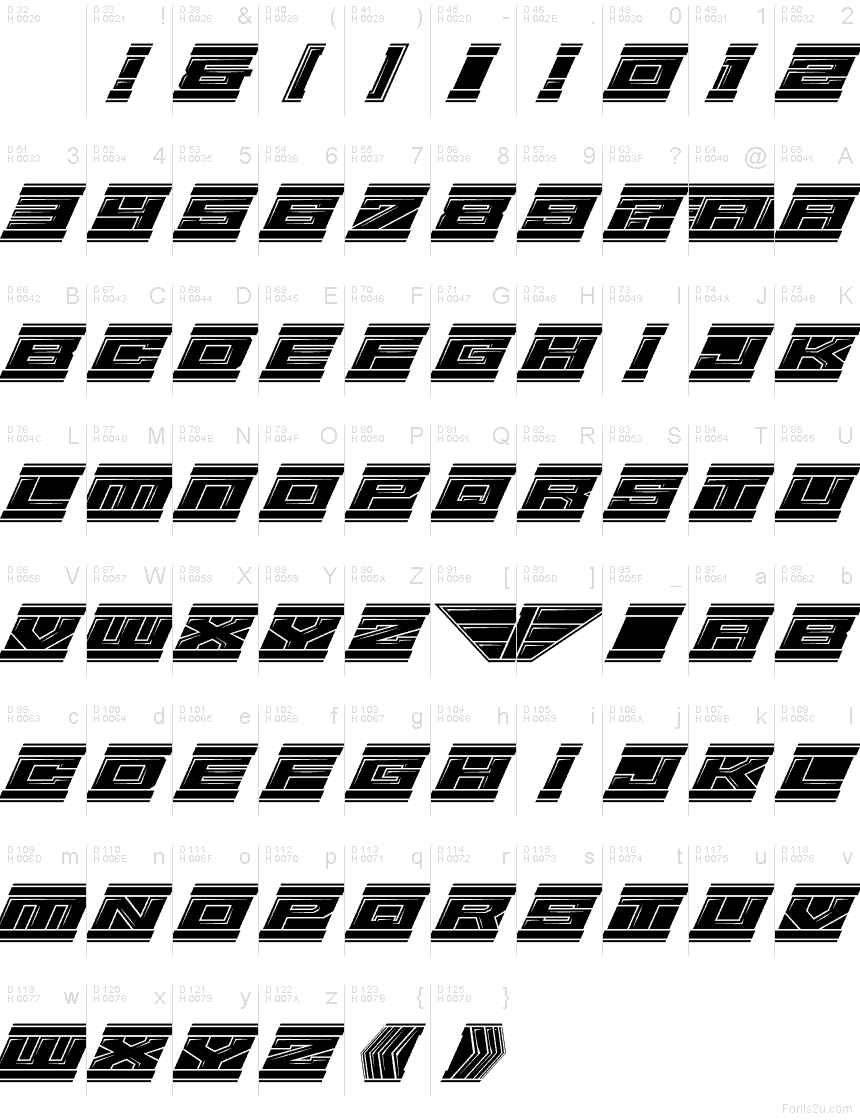
Gear-Shine
Gear6 Shine font by Youssef Habchi is a free techno racing display font built around a sleek, forward-leaning silhouette and a distinctive in-line “shine” that slices through each letter. Its stacked, aerodynamic stripes and tight, compressed stance look like bodywork streaking under floodlights—pure motion even at a standstill. Part of the Gear6 family, it brings high-octane clarity without sacrificing impact.
Using Gear6 Shine, headlines snap into gear with turbocharged contrast and readable speed. It shines on racing posters, esports logos, sci‑fi titles, tech event banners, streaming overlays, and energy drink packaging. Set it large for maximum streak effect, and pair with a plain grotesk or condensed sans to handle body copy. This free font delivers instant velocity.